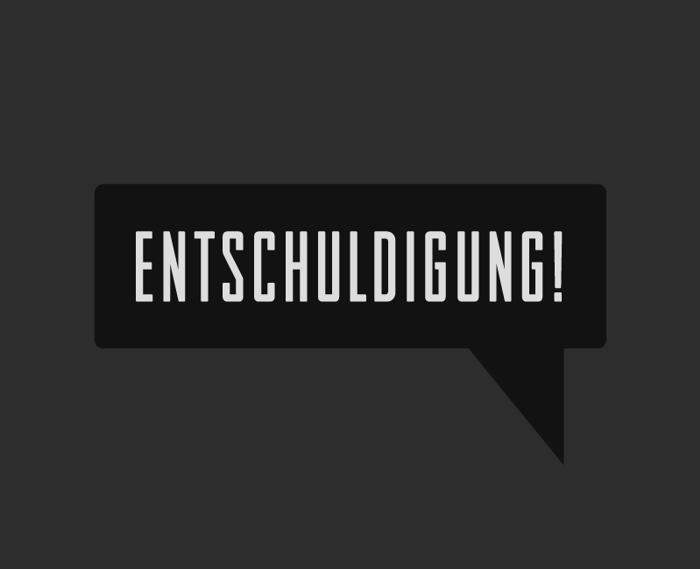
Entschuldigung Font
Entschuldigung! is a slighly rounded and soft industrial typeface, inspired by Morris Fuller Bentons 1930s classic "Agency Gothic".
Entschuldigung! is perfect for bold small print and maybe hipster logos.